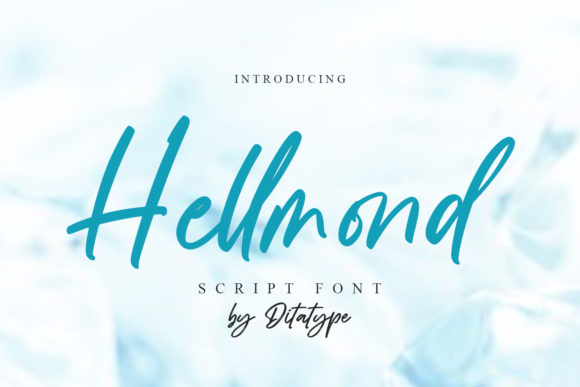
Unleash the Creative Charm with Hellmond: A Script Font for the Artful Soul
In a realm where creativity reigns supreme, let your designs blossom with the enchanting Hellmond font, a handcrafted symphony of elegance and artistry. Designed with a passion for the arts, this captivating script font carries the essence of modern beauty, effortlessly elevating your creations to new heights of visual allure.
Step into a world of artistic expression where letters dance with grace and fluidity. Hellmond's natural handwritten style breathes life into your designs, adding an intimate touch that resonates with your audience. Each stroke, crafted with the utmost care, captures the essence of human creativity, unveiling a tapestry of emotions and stories waiting to be told.
With Hellmond as your artistic partner, transform your digital canvas into a captivating masterpiece. As a font designed for art websites, it's the perfect companion for showcasing your creations, whether it's stunning paintings, captivating illustrations, or awe-inspiring photography. Its organic flow and delicate curves create a sense of depth and dimension, drawing your viewers into a world of visual enchantment.
Embrace the limitless possibilities that Hellmond presents. Express your artistic vision in logos, branding, social media graphics, or website headers, and watch as your designs captivate and inspire. Let the world witness the beauty that unfolds when art and typography collide, creating a symphony of visual delight.
Journey through a myriad of design styles with Hellmond as your guide. From elegant wedding invitations to whimsical posters, from heartfelt personal branding to eye-catching marketing materials, this versatile font adapts seamlessly to your creative vision. Its inherent charm adds a touch of sophistication to any project, captivating your audience with its effortless grace.
Join the ranks of inspired designers and artists who have embraced Hellmond's allure, transforming their creative endeavors into works of art. Step into the spotlight and showcase your artistic brilliance, knowing that Hellmond will amplify the impact of every stroke and every word.